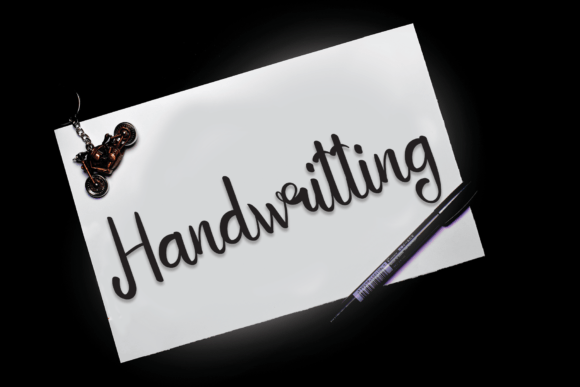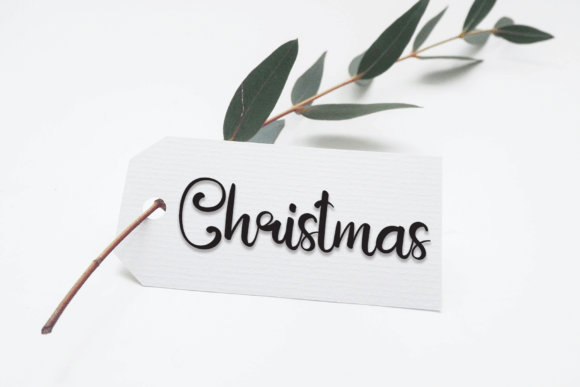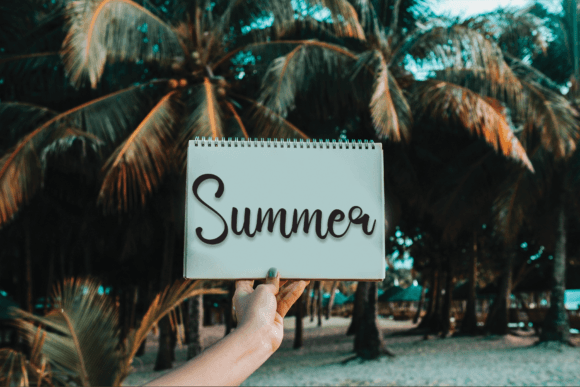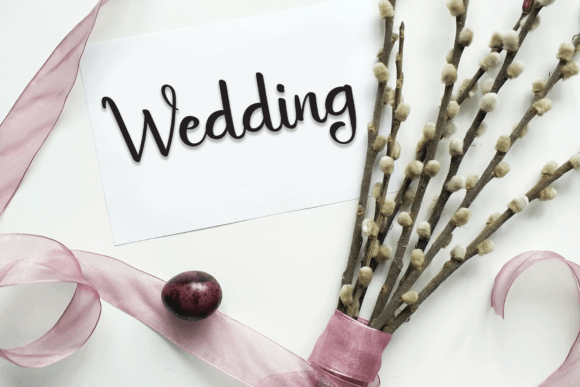
Introduction to Simple Live Font
Simple Live is a sweet and smooth handwritten font.
Cute and playful, this font is ideal for writing wedding invitations, cards, or any other design that might need a romantic and personal touch .